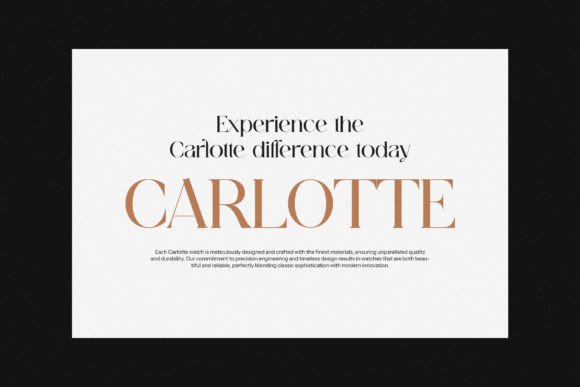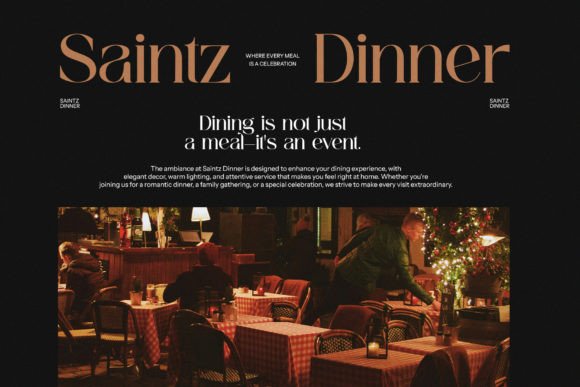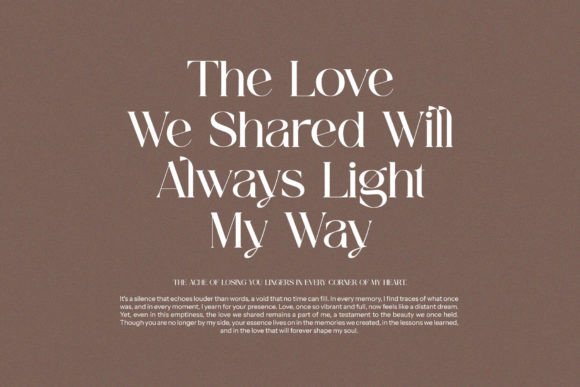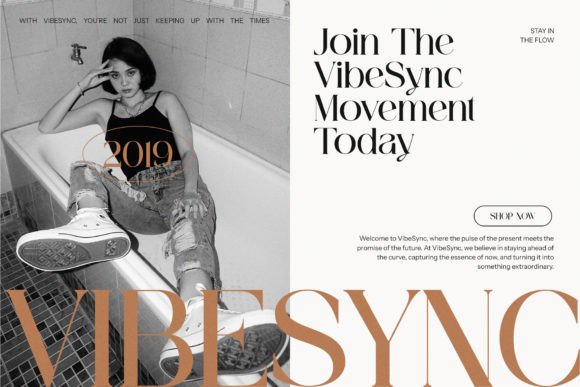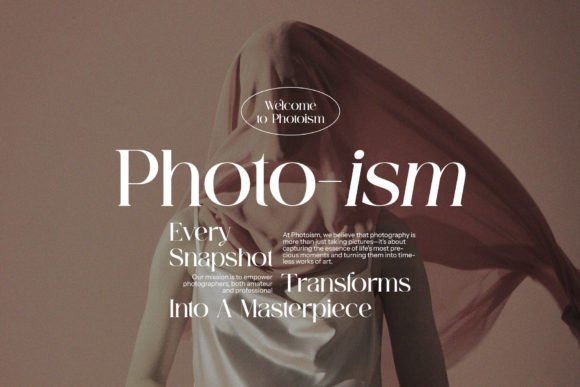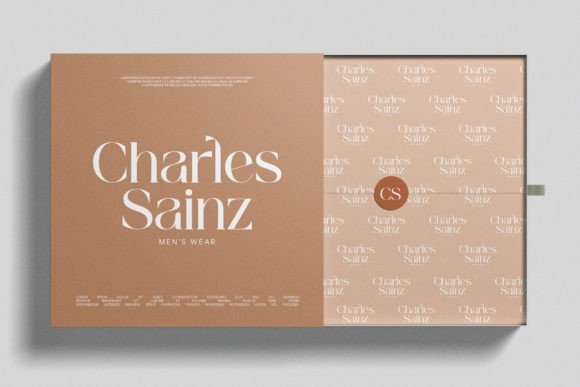
Falkon Font: Elevate Your Design with a Sleek and Modern Serif Typeface
In the world of typography, a well-chosen font can make all the difference in the aesthetic and effectiveness of a design. For those seeking a contemporary and polished appearance, the Falkon Font is an excellent choice. This sleek, modern serif typeface is designed to bring a touch of elegance and sophistication to any project, whether it’s for headings, body text, or anything in between.
What is Falkon Font?
Falkon is a carefully crafted serif typeface that boasts clean lines and a stylish look. One of its defining features is the small, elegant curves at the ends of its letters, which add a subtle touch of refinement. This design element not only makes Falkon perfect for headings, where a bold statement is often required, but also for body text, where readability and flow are paramount.
Key Features of Falkon Font
- Sleek and Modern Design: Falkon embodies a contemporary aesthetic that fits well with current design trends. Its sleek lines and minimalist approach make it versatile for a wide range of applications.
- Elegant Curves: The small, elegant curves at the ends of the letters are a hallmark of Falkon’s design. These curves add a level of sophistication and elegance, making the font suitable for projects that require a polished look.
- High Readability: Despite its sleek and modern appearance, Falkon does not compromise on readability. It is designed to be clear and legible, making it an excellent choice for both headings and body text.
- Versatility: Falkon’s design is versatile enough to be used across various mediums, from digital platforms like websites and mobile apps to print materials such as brochures, magazines, and posters.
Why Choose Falkon Font?
Choosing the right font for a project can be a daunting task, given the numerous options available. However, Falkon stands out for several reasons:
- Contemporary Aesthetic: In today’s fast-paced digital landscape, a modern and sleek design is crucial for grabbing attention. Falkon’s contemporary aesthetic ensures that your project looks current and engaging.
- Professionalism: The elegant curves and clean lines of Falkon convey a sense of professionalism and sophistication. This makes it an ideal choice for projects that require a serious and polished appearance.
- Adaptability: Whether you’re designing for digital or print, Falkon’s adaptability makes it a valuable asset. Its performance across different mediums and sizes ensures that your design remains consistent and effective.
How to Use Falkon Font Effectively
To maximize the impact of Falkon Font, consider the following tips:
- Pair with Complementary Fonts: While Falkon is versatile and can stand alone, pairing it with complementary fonts can enhance its appeal. Choose fonts that share similar design elements or contrast effectively to create visual interest.
- Adjust Font Sizes: For optimal readability, adjust font sizes according to the medium. For instance, larger sizes may be more suitable for headings, while smaller sizes can be used for body text.
- Experiment with Colors: The right color choice can significantly impact the effectiveness of your design. Experiment with different colors to find the perfect match that enhances the readability and aesthetic of your text.
Falkon Font is a powerful tool for designers and crafters looking to elevate their projects with a sleek, modern serif typeface. Its elegant design, high readability, and versatility make it an excellent choice for a wide range of applications. By incorporating Falkon into your design repertoire, you can ensure that your projects exude a contemporary and polished appearance that captures attention and communicates effectively.
Whether you’re working on a digital project or a print material, Falkon Font is sure to make a positive impact. Explore its potential today and discover how it can transform your designs into visually stunning and effective communications.